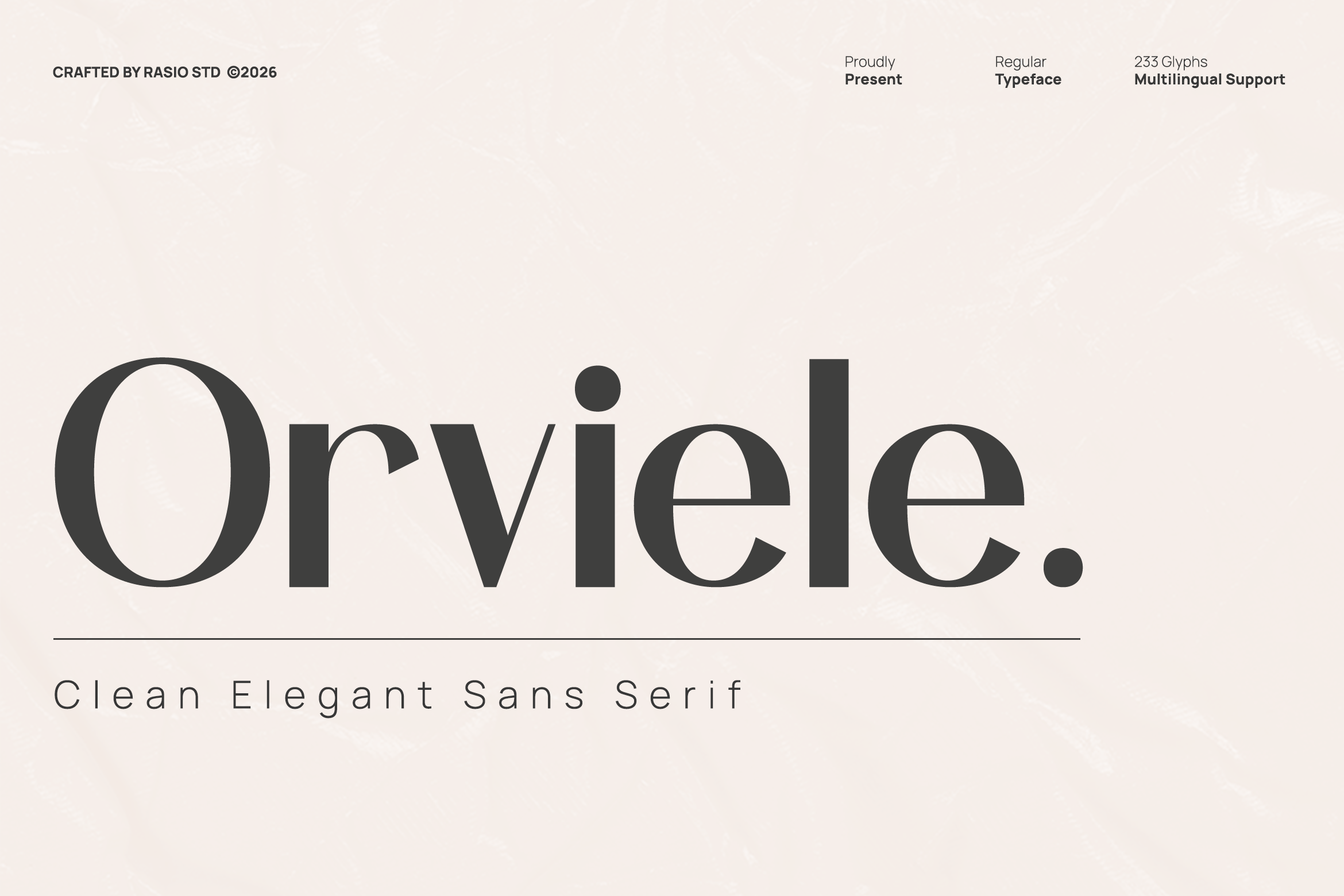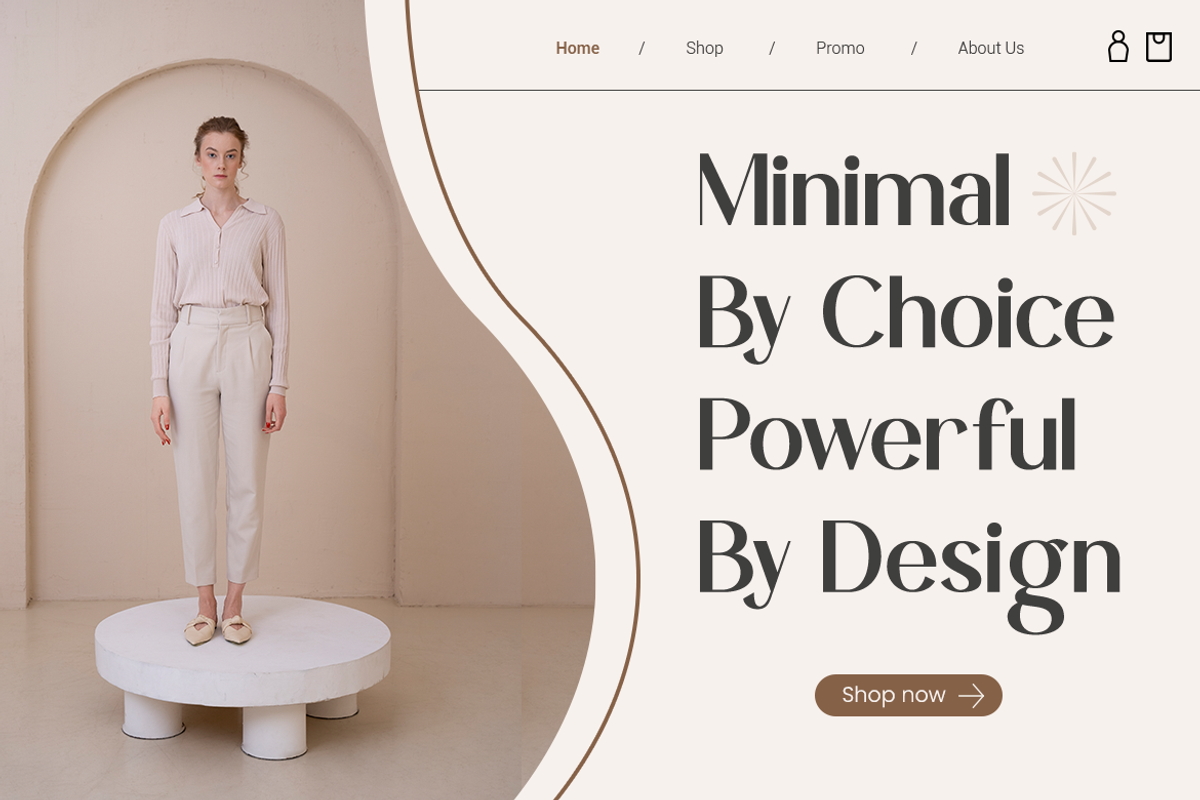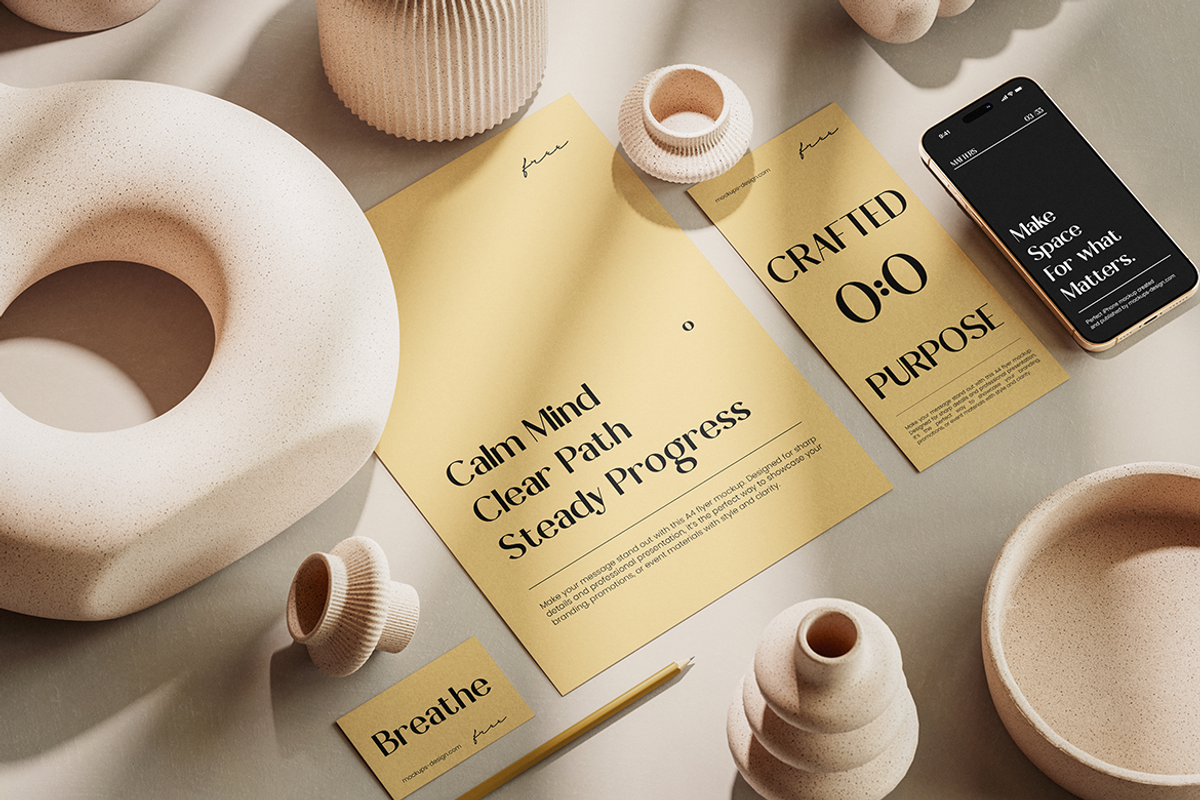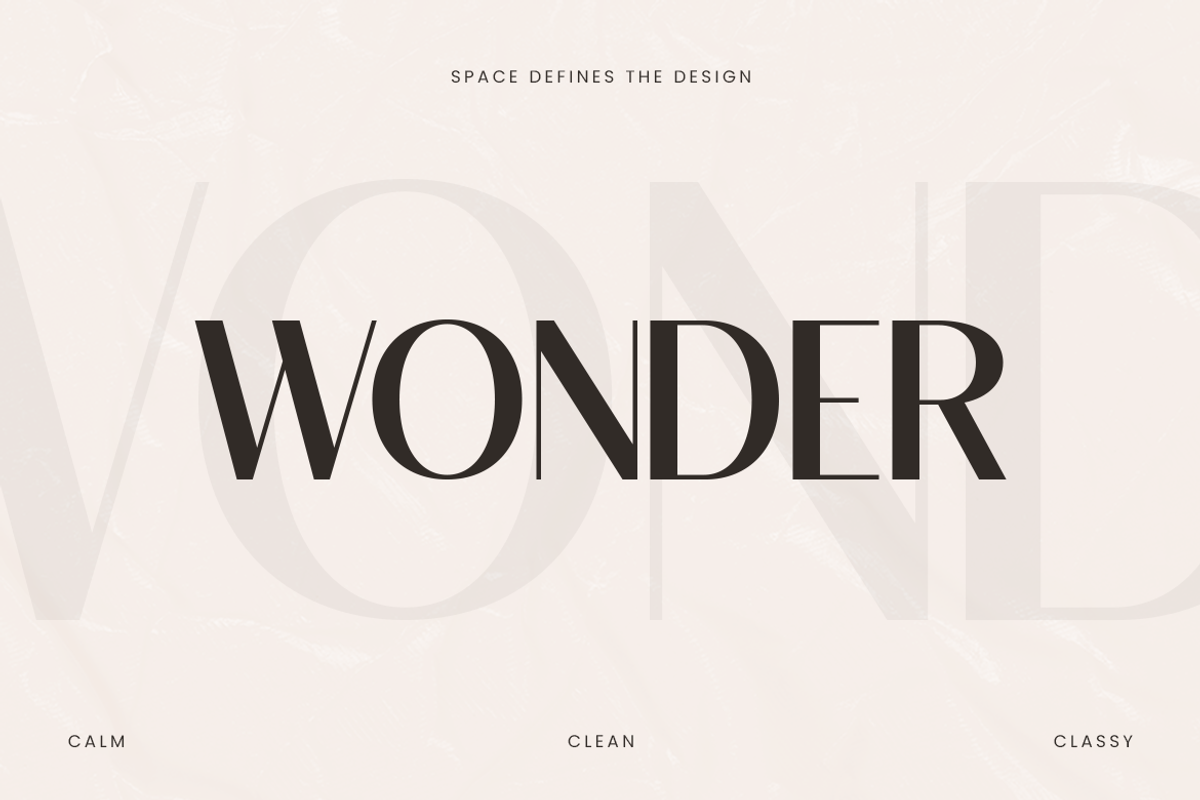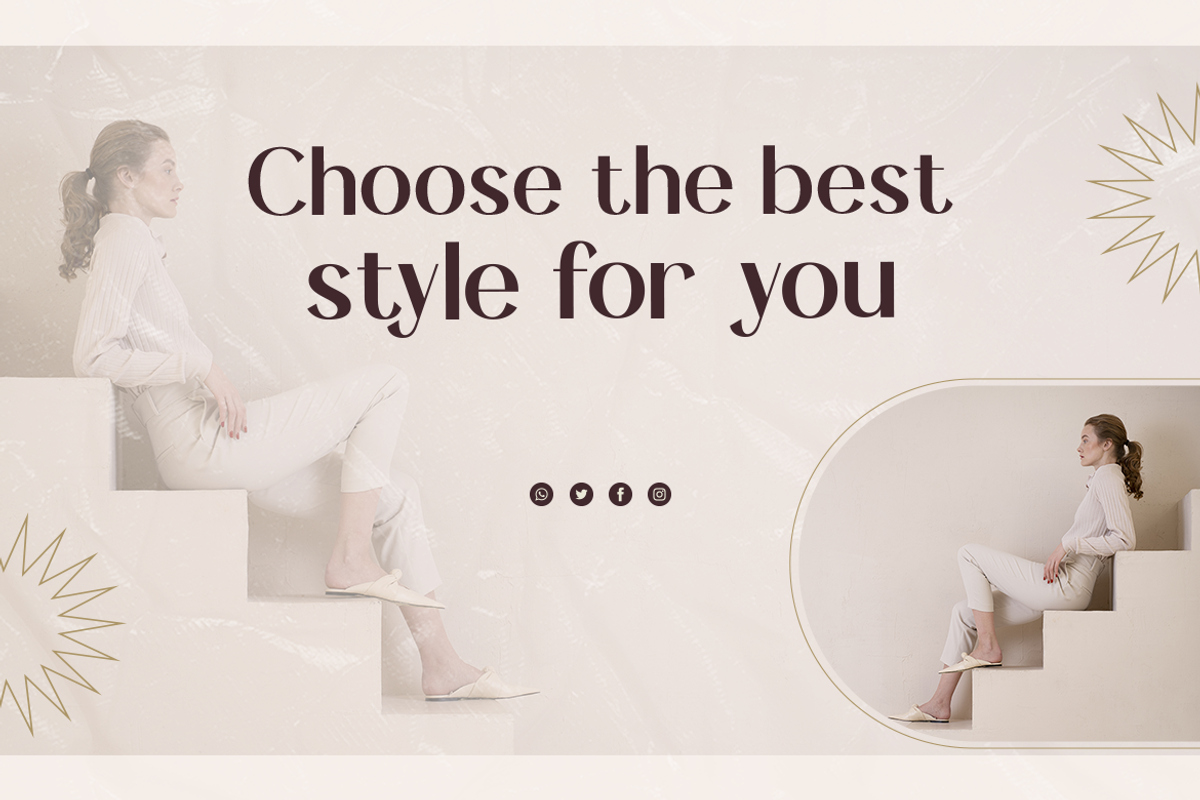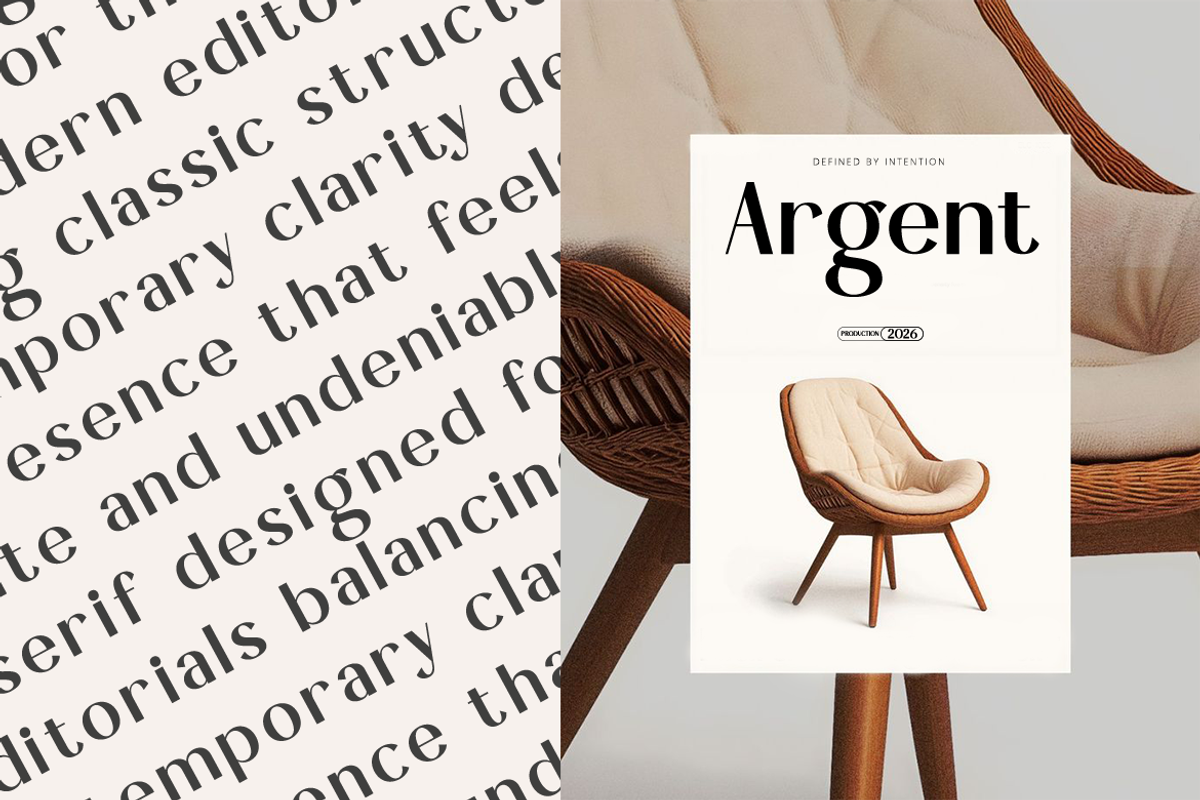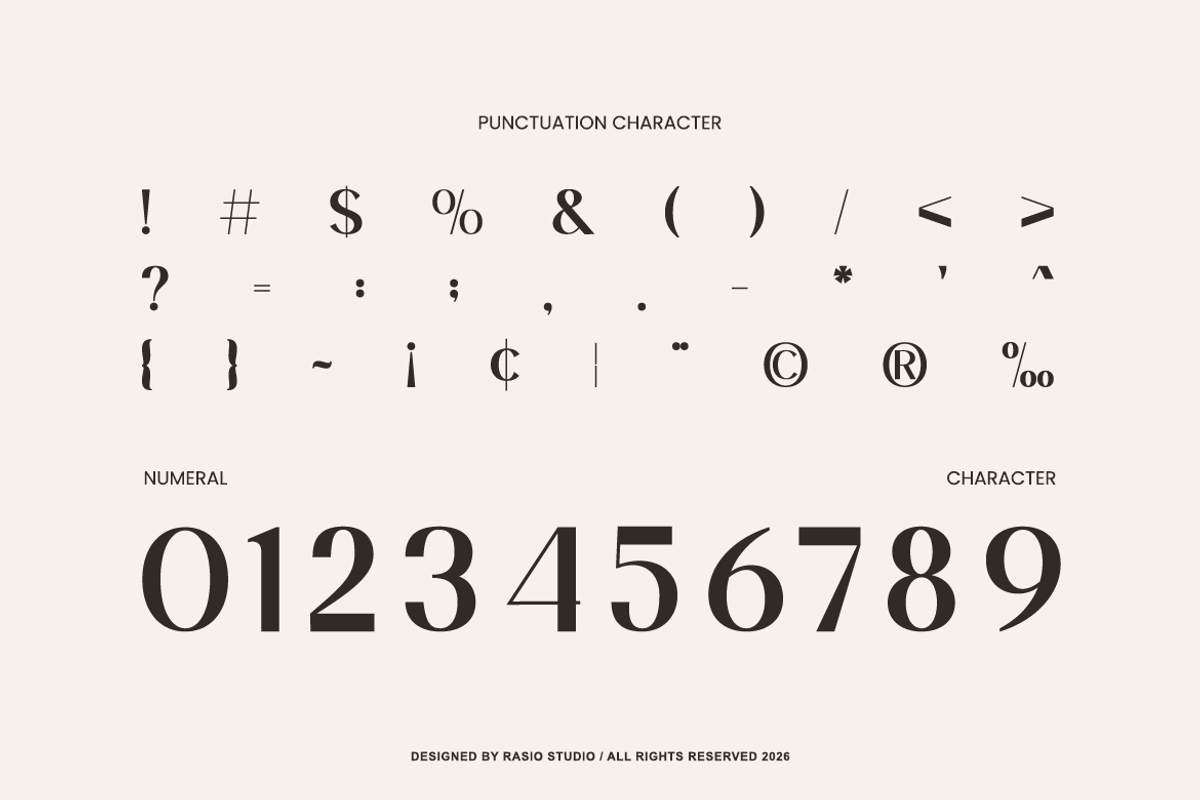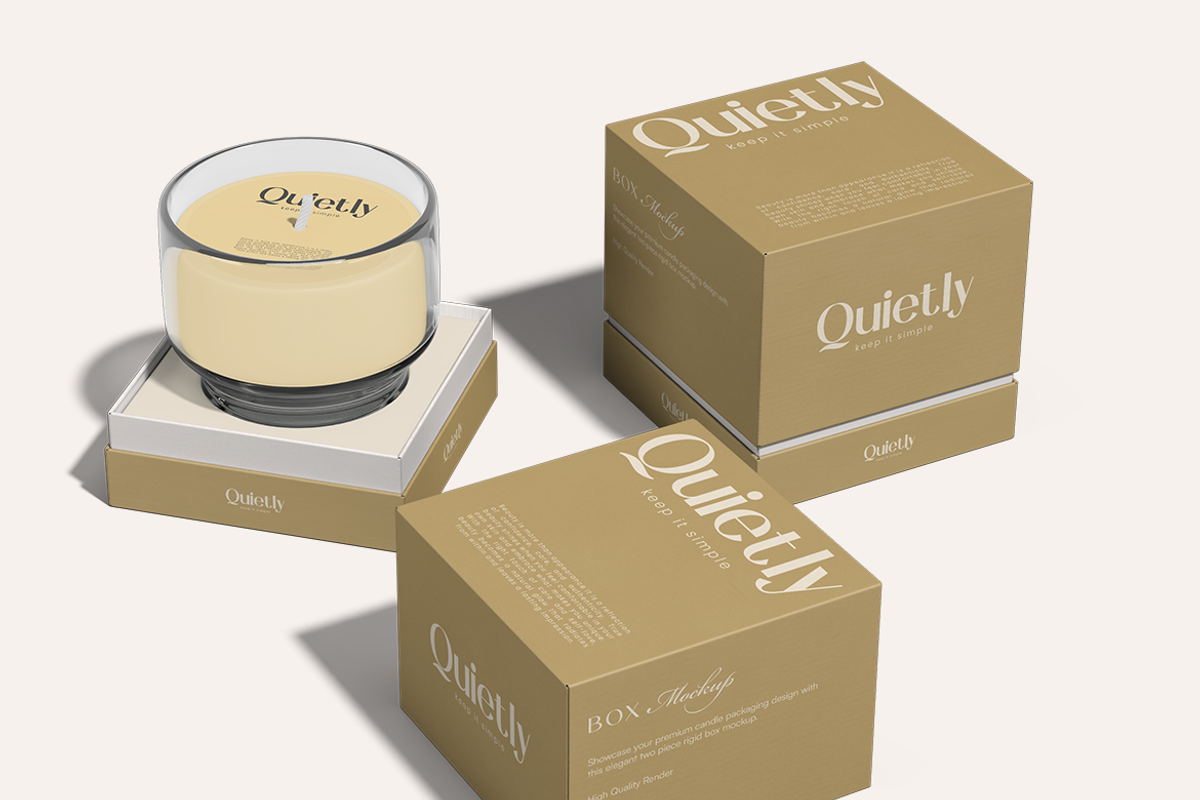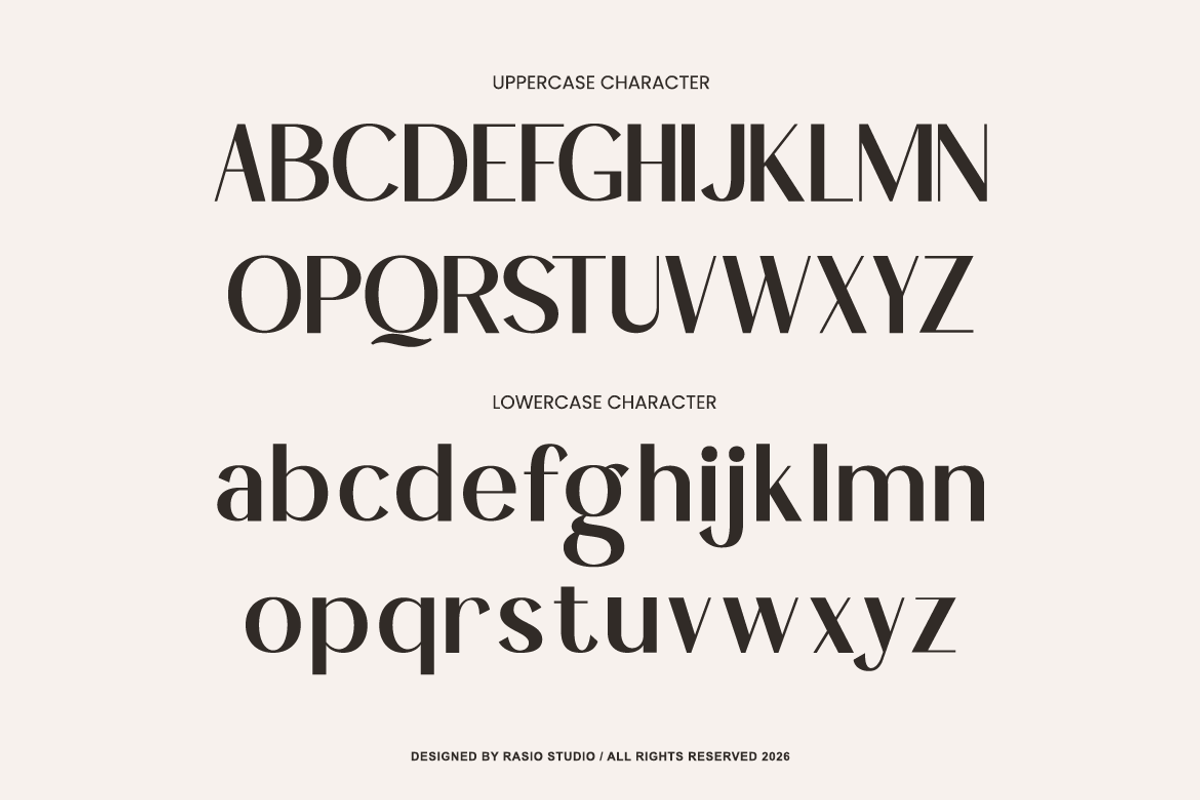
Orviele Clean Elegant Sans Font
Orviele Clean Elegant Sans Serif presents a refined and contemporary typeface built with smooth curves, balanced proportions, and subtle contrast for a sophisticated visual tone. The font includes uppercase, lowercase, numerals, and punctuation with, offering versatility across various design needs. Its clean structure and modern elegance create strong readability while maintaining a premium aesthetic for both digital and print applications.
Relevance and Use Cases is perfect for branding design, corporate identity systems, fashion editorials, modern websites, UI/UX interfaces, startup presentations, digital products, advertising campaigns, portfolio layouts, social media branding, luxury packaging, and professional print materials that require a clean, elegant, and contemporary typographic presence.
- Elegant serif construction with refined high-contrast strokes
- Delicate thin-to-thick transitions creating a luxurious visual rhythm
- Sharp yet graceful serifs enhancing a sophisticated editorial tone
- Balanced proportions with slightly elongated letterforms for elegance
- Clean spacing optimized for both headline impact and readable body text
- Luxury brand identity systems with a refined and high-end visual tone
- Fashion editorials, magazines, and premium lookbook layouts
- Elegant logo design for beauty, jewelry, and boutique businesses
- Wedding invitations, event stationery, and upscale print materials
- Product packaging for cosmetics, perfume, and luxury goods